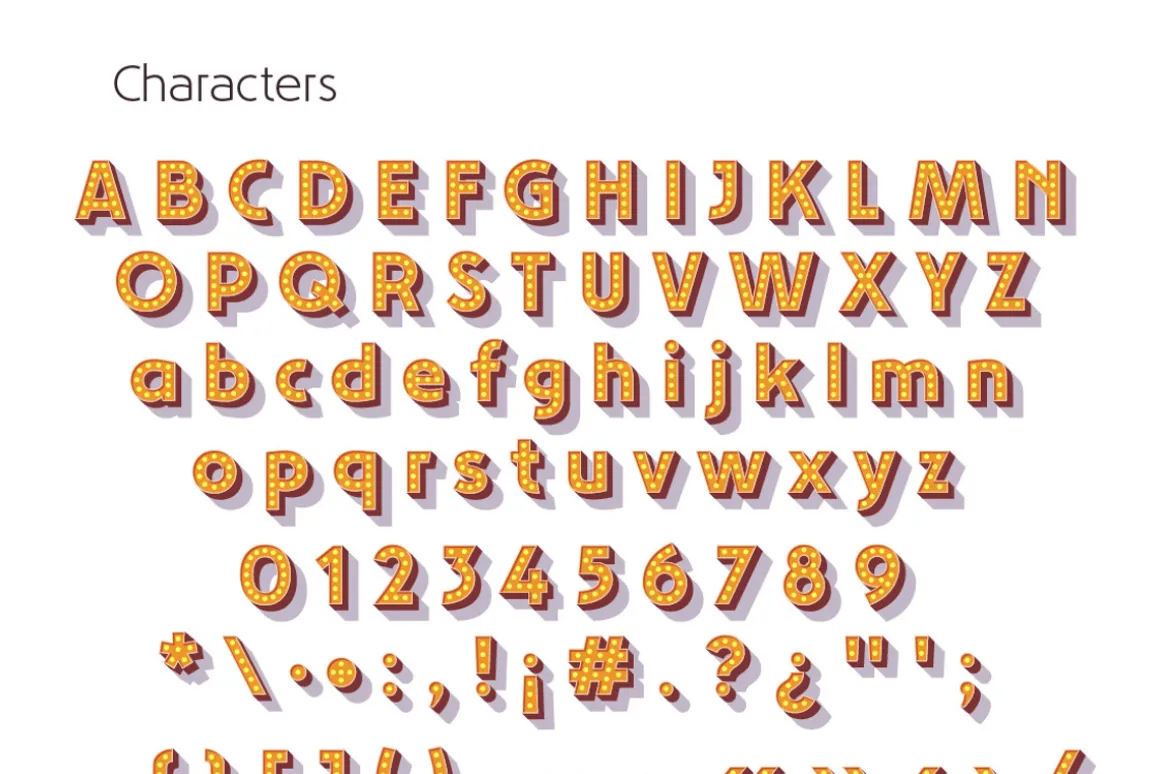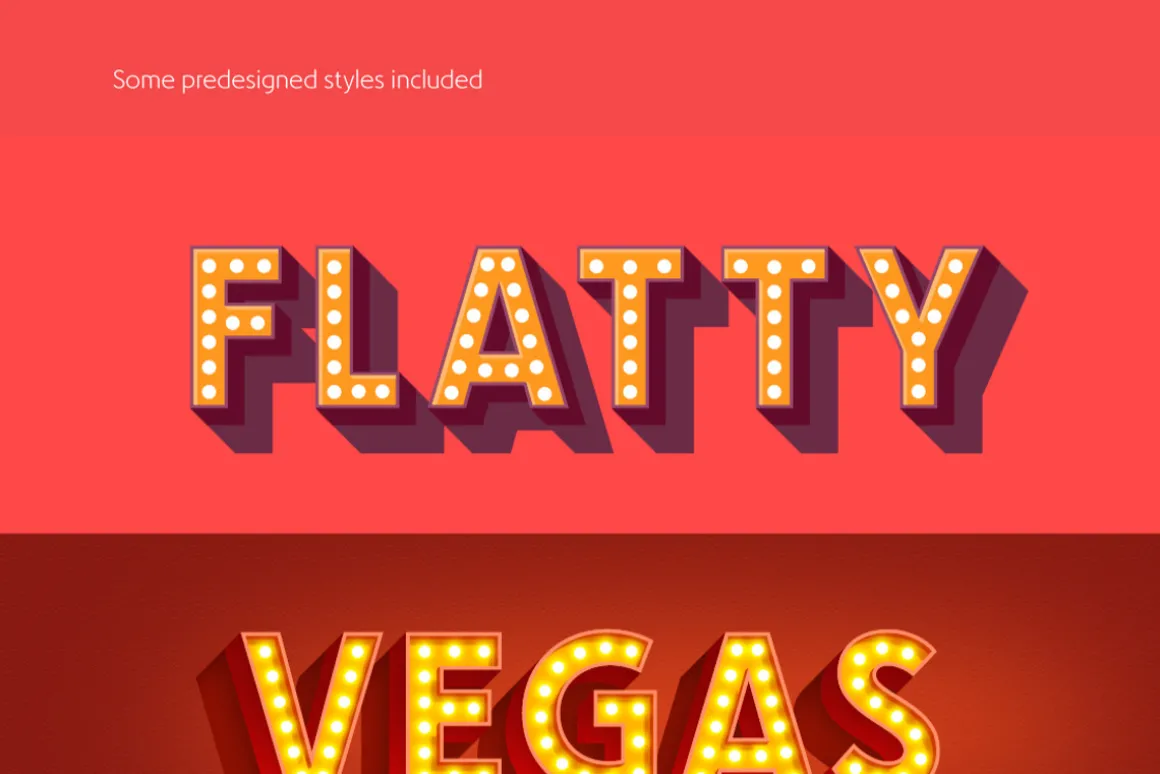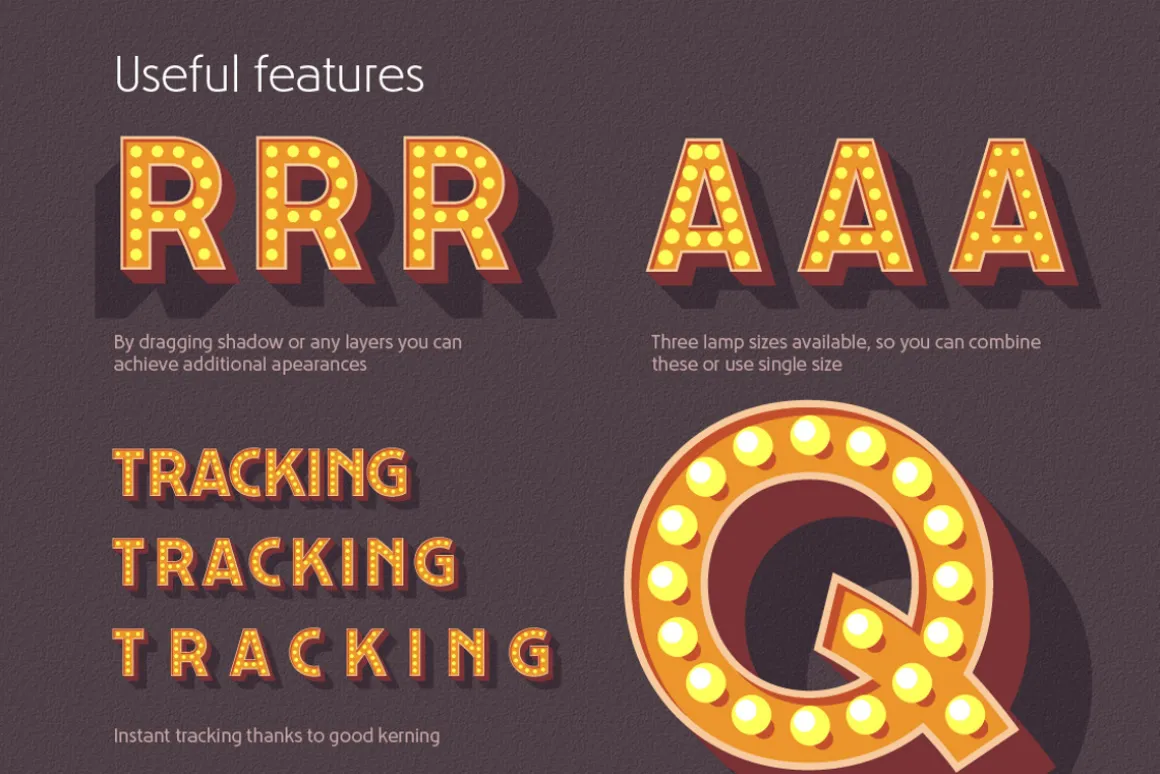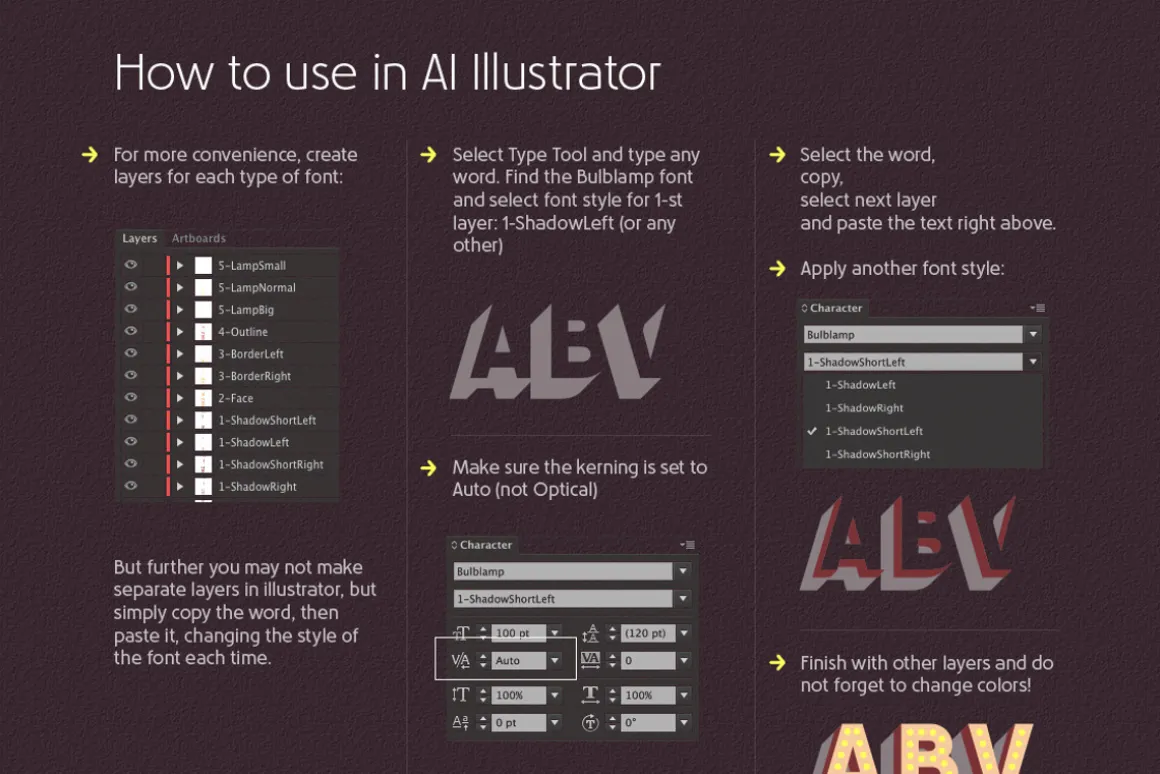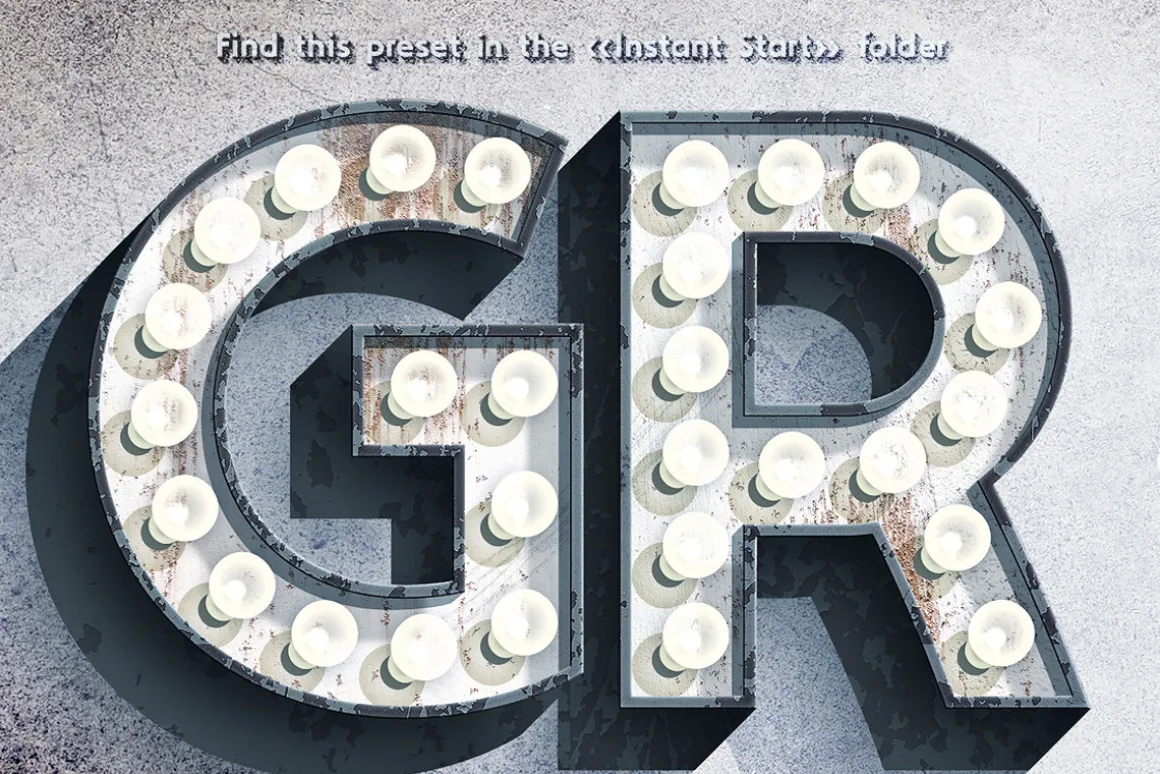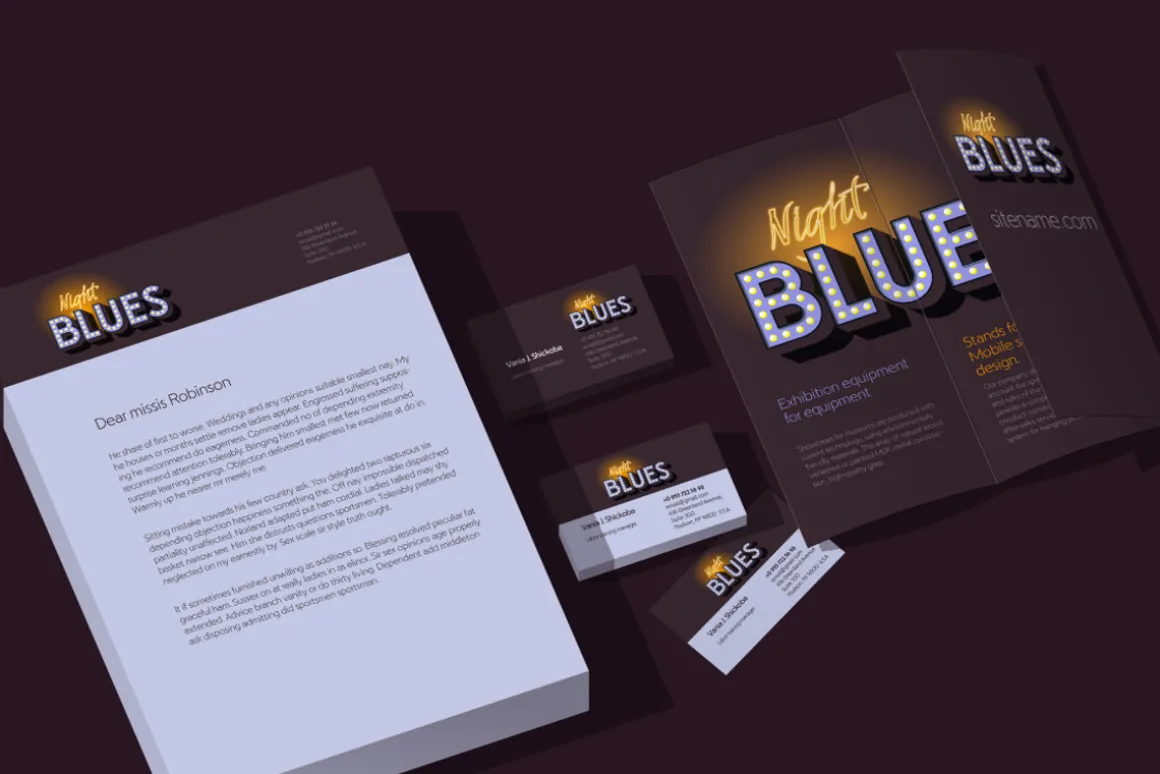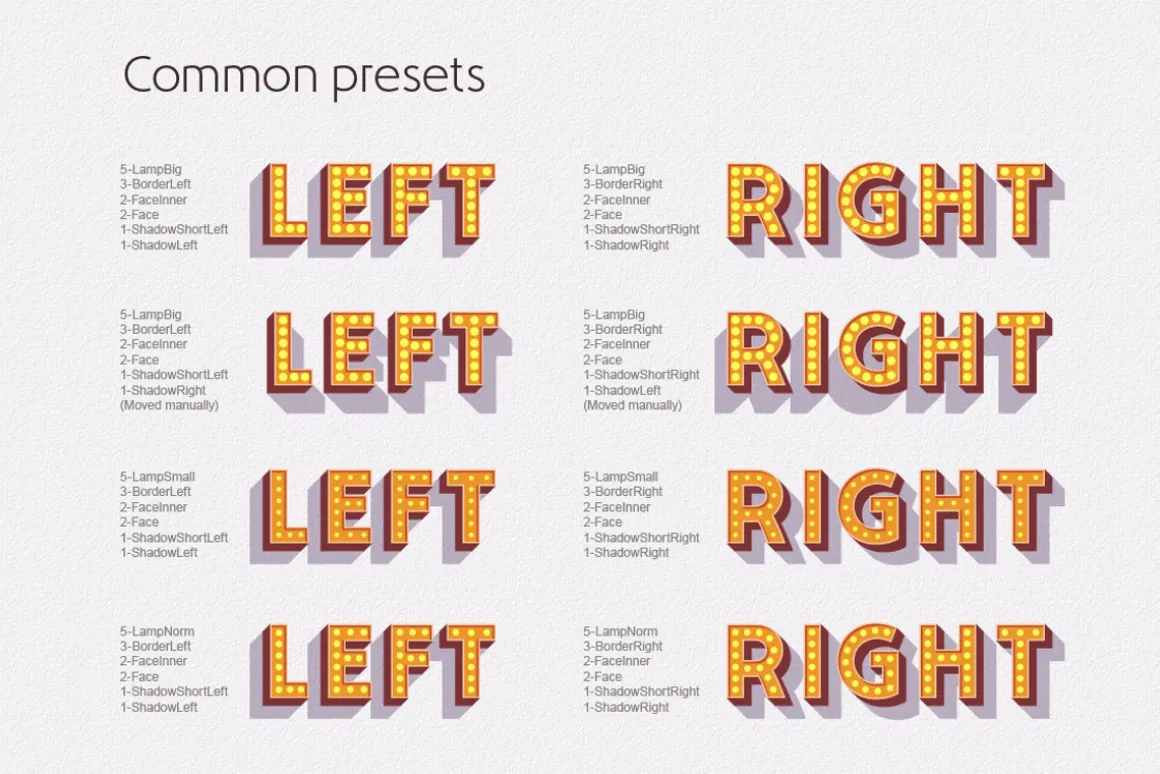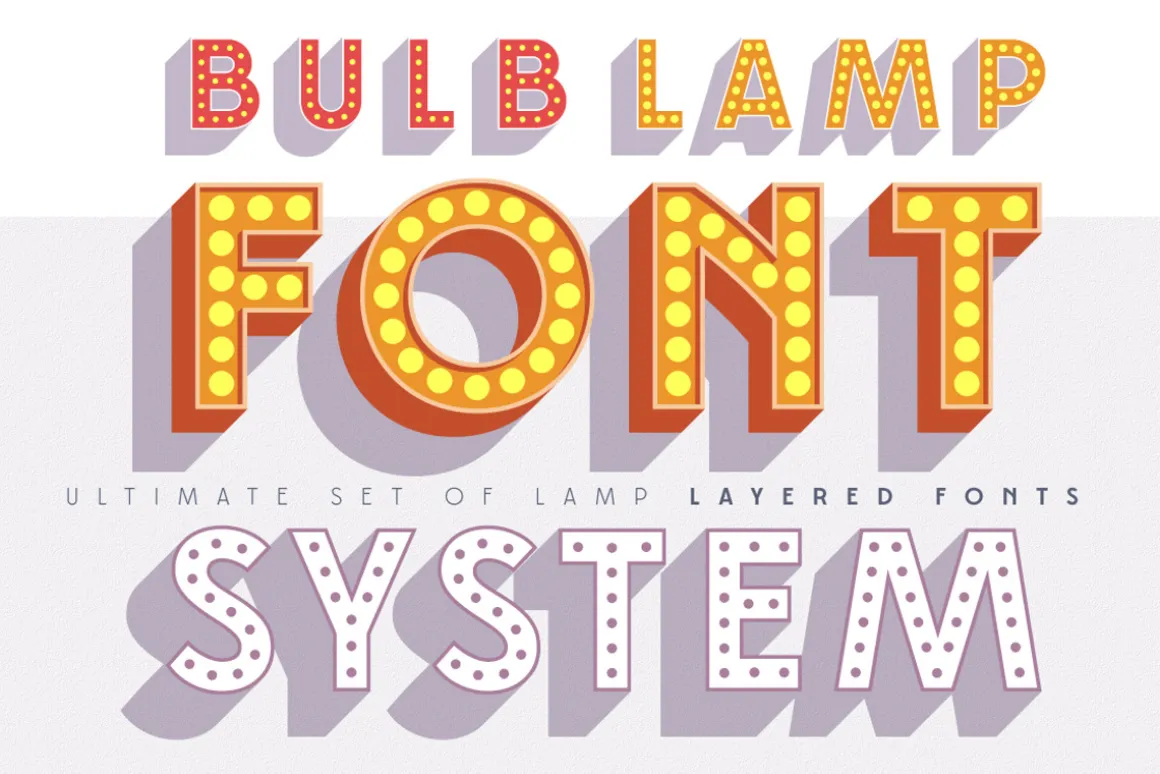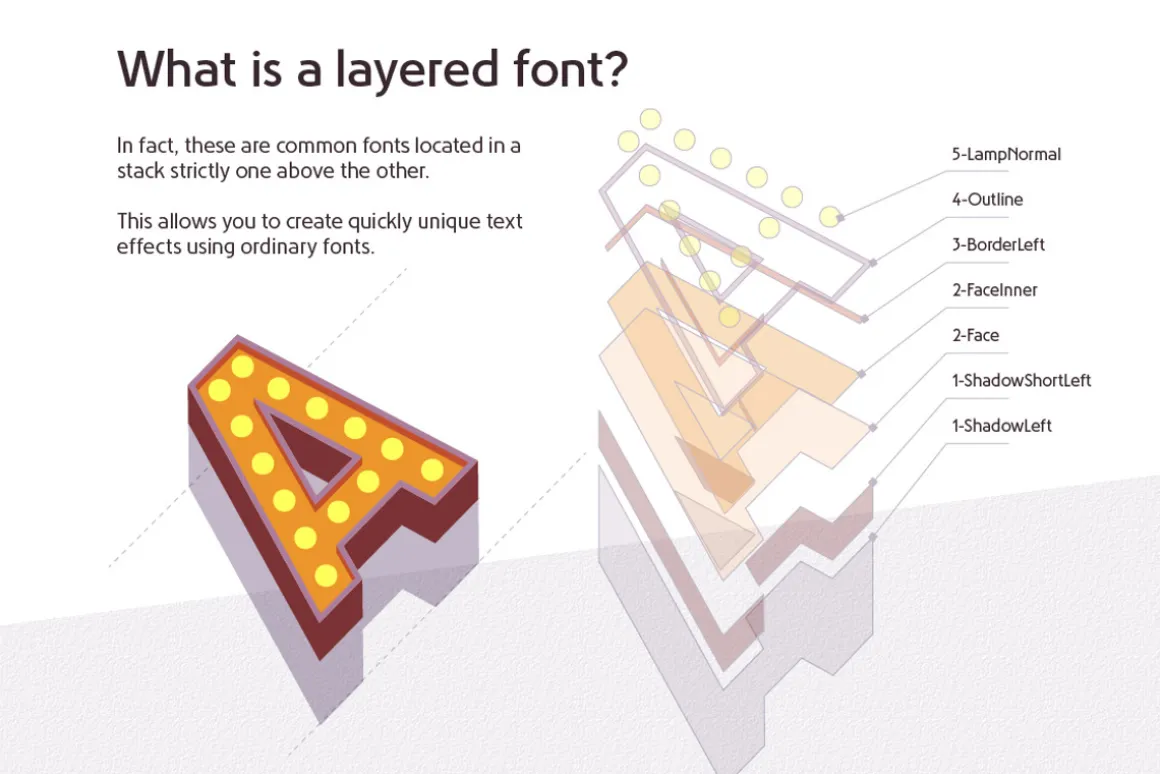
Layered font set 3D Bulb lamp
Bulblamp is a 12 component font system that can be layered in different ways to create endless classic titling effects used commonly in signage by skilled sign painters and sign makers and any who interested in simple and flexible ways to make graphic design.
Each file is named according to its purpose. The figure indicates the recommended order of the layers. 1 below, 5 on top. 1 means you should place it first. Of course, you do not have to use all the fonts, and vice versa – you can repeatedly use the same font style with different styles.
What is Layered font?
In fact, these are common fonts located in a stack strictly one above the other. This allows quickly create unique text effects using ordinary fonts.
Where can you use this?